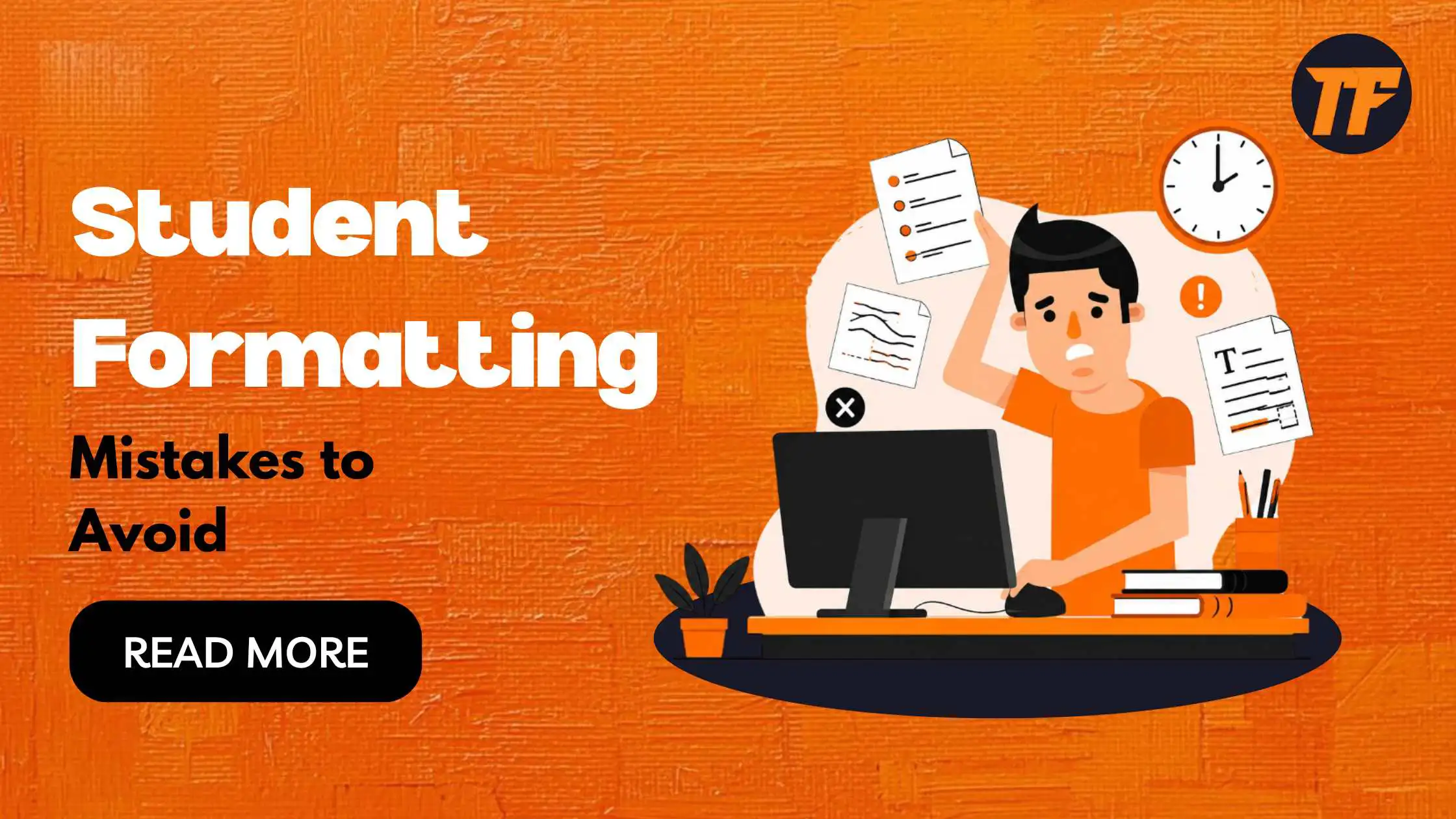
Formatting is more than a finishing touch. It directly affects readability, organization, and the overall impression of academic work.
A well-structured document helps instructors focus on your ideas instead of being distracted by inconsistent fonts, spacing, or headings. Many students spend hours perfecting their research but overlook presentation until the last minute, leading to avoidable mistakes.
Fortunately, most formatting issues can be corrected quickly with the right approach. This guide explains the most common formatting mistakes students make, practical ways to avoid them, and how typography principles can improve both the appearance and readability of academic assignments.
A document's appearance shapes the reading experience before the first paragraph is even evaluated. Consistent typography, spacing, and layout create a professional presentation that allows readers to concentrate on the content rather than visual distractions.
Academic formatting serves several important purposes:
Improves readability.
Creates a logical visual hierarchy.
Demonstrates attention to detail.
Supports instructor expectations.
Makes lengthy documents easier to navigate.
When formatting is inconsistent, even well-researched assignments may appear rushed or incomplete.
Of all the formatting decisions a student makes, the choice of font quietly does the most work. A font isn't just a visual style it sets the pace at which a reader moves through a page.
Dense, decorative, or overly condensed fonts slow readers down and tire the eyes over long documents, while a clean, well-spaced font lets an instructor move through pages quickly without friction.
This is why academic style guides tend to recommend a narrow set of fonts: they've been tested for long-form readability, not just appearance. Before finalizing a document, it's worth checking not only which font is used, but how it behaves at the assignment's actual length — a font that looks fine for one page can become fatiguing across ten.
Formatting should enhance quality writing—not compensate for weak organization. Students often find that editing layout becomes much easier after the structure and arguments are finalized.
Common Formatting Mistakes Students Make
1. Using Multiple Fonts
One of the most common problems occurs when content is copied from different sources, resulting in inconsistent typography.
Instead:
Choose one font family.
Use consistent font sizes.
Apply styles uniformly throughout the document.
Popular academic fonts include:
Times New Roman
Cambria
Georgia
Arial
Calibri
2. Inconsistent Heading Styles
Headings guide readers through your document. Mixing bold text, italics, different sizes, or inconsistent capitalization makes the structure difficult to follow.
Maintain consistency by using:
One heading style for each level.
Identical font sizes for matching headings.
Consistent spacing before and after headings.
3. Incorrect Line Spacing and Margins
Spacing improves readability and prevents pages from appearing cluttered.
Recommended formatting generally includes:
11–12 pt font size
1.5 or double line spacing
Standard one-inch margins
Left-aligned text unless required otherwise
Always verify formatting requirements specified by your instructor or style guide.
4. Poor Paragraph Formatting
Students frequently create inconsistent spacing by manually pressing Enter multiple times.
Instead:
Use paragraph spacing settings.
Keep indentation consistent.
Avoid unnecessary blank lines.
This creates a cleaner and more professional layout.
5. Citation and Page Number Errors
Incorrect citations remain one of the most overlooked formatting issues.
Before submitting, verify:
Page numbers
Running headers (if required)
Citation style (APA, MLA, Chicago, etc.)
Reference list formatting
In-text citations
These small details contribute significantly to academic professionalism.
Developing simple habits saves time and reduces editing later.
Select a readable font and use it throughout the document. Changing font weight or size is usually sufficient for creating emphasis without introducing additional typefaces.
Word processors provide heading styles that automatically maintain consistency across documents.
Complete the draft first, then perform a dedicated formatting review. Separating writing from formatting helps identify inconsistencies more efficiently.
During your final review, ignore the wording temporarily and examine only:
Use your word processor's formatting tools, built-in heading styles, and print preview to review fonts, spacing, margins, and page layout before submission.